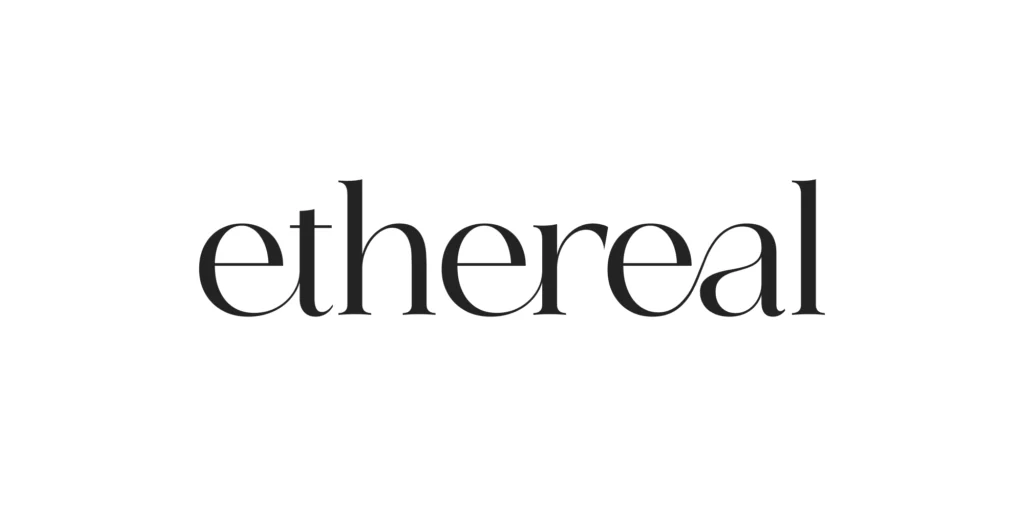
Ethereal
Ethereal is an exquisitely designed serif font family that effortlessly blends modern minimalism with luxurious elegance, making it the perfect choice for sophisticated branding, editorial layouts, and premium design projects.
Inspired by the refined simplicity found in high-end beauty brands and timeless editorial fashion, Ethereal evokes a delicate sense of elegance and a captivating, airy aesthetic. Each letterform is carefully crafted to radiate an ethereal, refined charm, adding depth and luxury to your designs.
Ethereal is ideal for luxury branding, elegant beauty packaging, sophisticated editorial designs, fashion and lifestyle websites, and premium personal branding projects. Its timeless and refined style ensures your projects convey sophistication, high-quality aesthetics, and unforgettable visual appeal.
9 Weights: From delicate Thin to bold Black
• Font Style: Serif, Elegant, Modern
• Nine Weights (Thin to Black)
• Basic Character Set (Uppercase, Lowercase, Numerals, Punctuation)
• OpenType Features: Alternates, Ligatures
• Multilingual Support